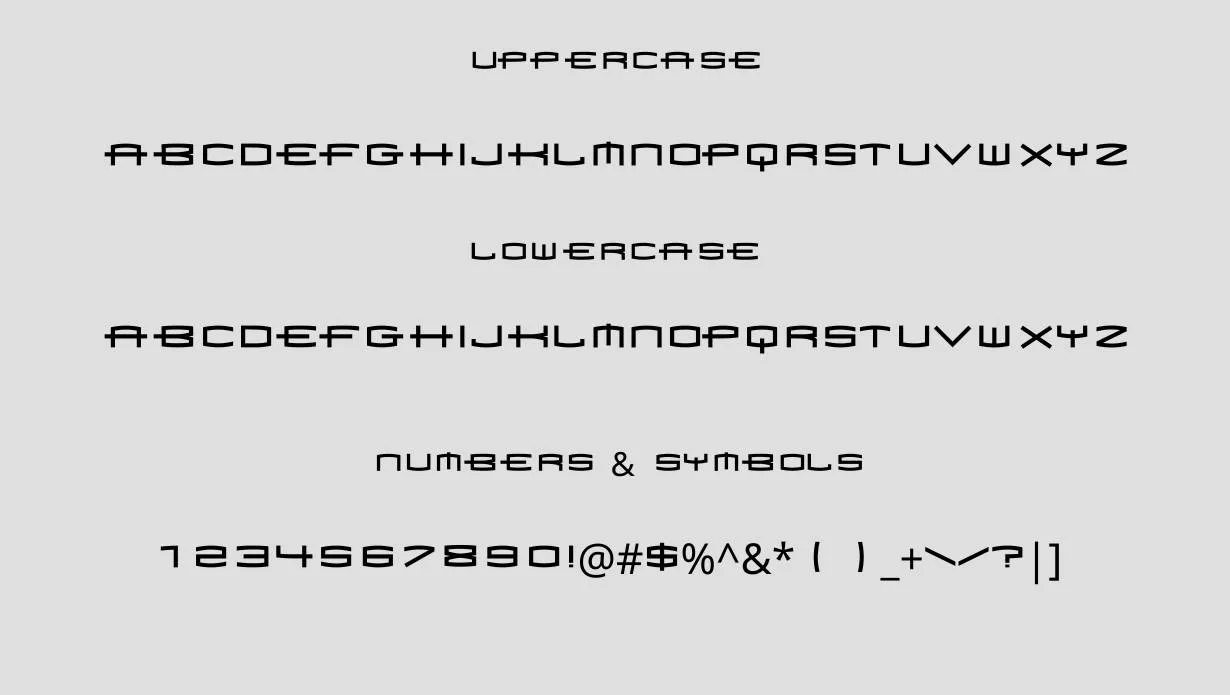
The Smashing Pumpkins 1979 font is a nod to the grunge and alternative rock era. Its edgy and rebellious style mirrors the spirit of the ’90s music scene. The letters have a raw and energetic feel, perfect for creating a design that rocks.
Whether you’re working on a concert poster, or album cover, or just want to infuse a bit of rock and roll attitude into your project, the Smashing Pumpkins 1979 font is the key to unleashing the rebellious spirit of the alternative music culture.
| Name | Smashing Pumpkins 1979 Font |
| Designer | Frank Olinsky |